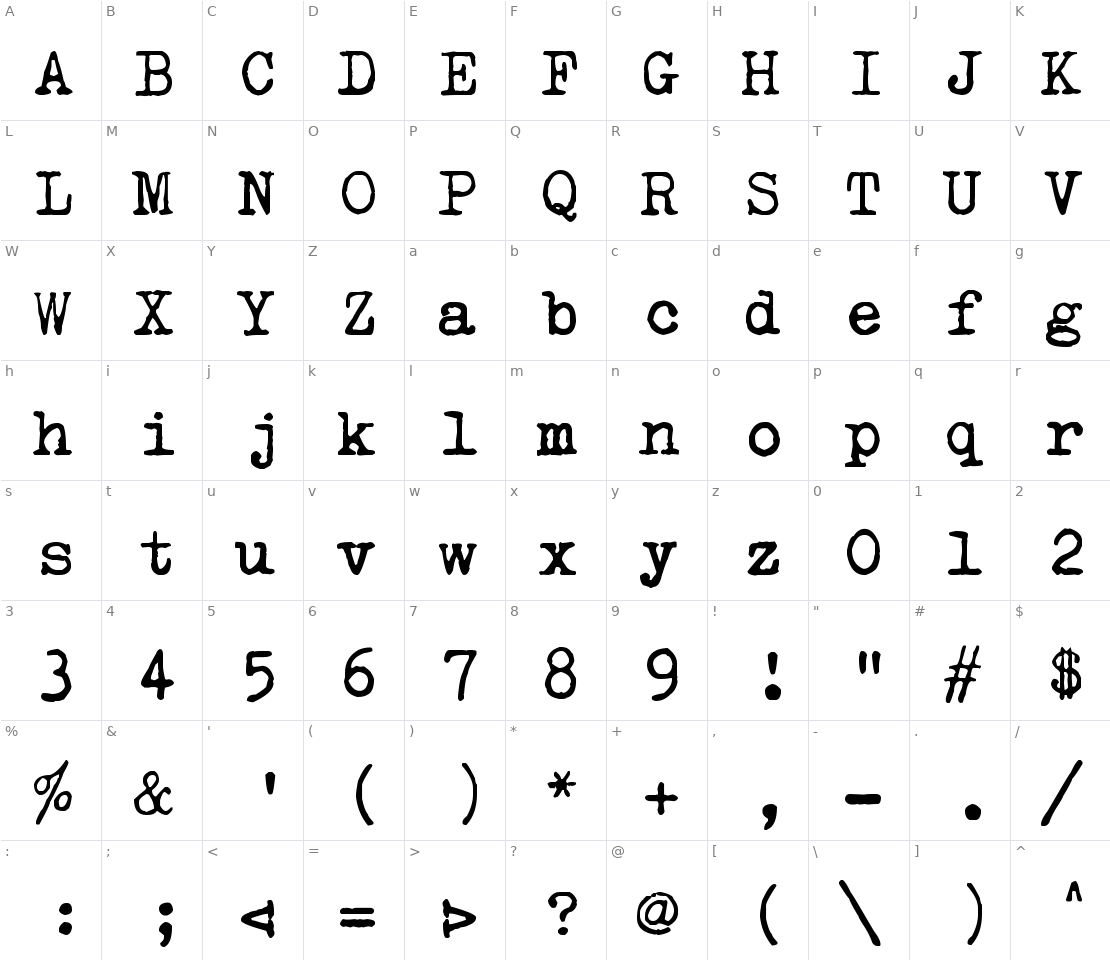
zai Olivetti-Underwood Studio 21 Typewriter
zai Olivetti-Underwood Studio 21 Typewriter is a faithful recreation of the output from the iconic Olivetti-Underwood Studio 21, a portable typewriter that was a staple of mid-century writing desks. Designed by Tomasz Skowroński, it captures the uneven ink density, slightly misaligned baselines, and mechanical slab serifs that make real typewriter text so recognizable. A natural choice for editorial layouts, literary projects, screenplays, or anything that wants to feel like it was hammered out on actual paper.